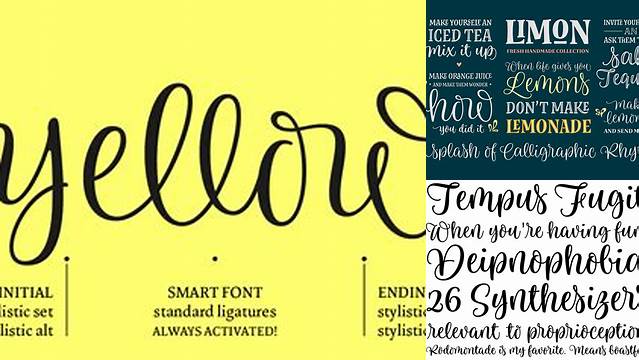
Limon Script Bold Font: Free Download & Best Uses
Hey guys! Let's dive into the world of fonts, specifically the Limon Script Bold font. This font isn't just another typeface; it's a stylish, elegant, and versatile option that can elevate your design projects. Whether you are crafting a logo, designing a website, or putting together marketing materials, choosing the right font is crucial. Limon Script Bold offers a unique blend of readability and aesthetic appeal, making it a favorite among designers and creatives. It’s got this lovely, flowing script style that's both modern and timeless, making it super versatile for all sorts of projects. Think invitations, branding, or even website headers—Limon Script Bold can really make your text pop. Now, what's so special about a bold script font, you ask? Well, script fonts, in general, bring a touch of personality and warmth to any design. They mimic the fluidity of handwriting, which can make your content feel more personal and engaging. When you add the 'bold' element, you get extra emphasis and visibility, perfect for grabbing attention. In this comprehensive guide, we'll explore everything you need to know about Limon Script Bold, including its features, best uses, and how to get your hands on it for free. We’ll look at its unique characteristics, the kinds of projects it shines in, and where you can snag it without spending a dime. So, if you're looking to add a dash of elegance and personality to your designs, stick around! We're about to get font-astic!
Key Features of Limon Script Bold
When you're hunting for that perfect font, it’s essential to understand what makes it tick. Limon Script Bold isn't just another pretty face; it's packed with features that make it a standout choice. Let's break down what makes this font so special. First off, the most noticeable feature is its bold weight. This isn’t your faint-hearted script; it's got a substantial presence that commands attention. The boldness ensures that your text remains legible and impactful, even from a distance. This makes it perfect for headings, titles, and anywhere you need your words to make a statement. Beyond the bold weight, Limon Script Bold boasts an elegant, flowing script style. The letters connect seamlessly, creating a natural, handwritten feel. This fluidity adds a touch of sophistication and warmth to your designs, making them more inviting and personal. Imagine using this for wedding invitations or thank-you notes – it just screams class! Another key feature is its versatility. While it’s a script font, Limon Script Bold isn’t limited to just formal occasions. It can be used in a wide range of projects, from branding and logos to website design and social media graphics. Its modern yet timeless appeal means it fits in just about anywhere. And let's talk about readability. Script fonts sometimes get a bad rap for being hard to read, but Limon Script Bold strikes a fantastic balance. The bold weight and clear letterforms ensure that your message comes across loud and clear, without sacrificing style. This is crucial, especially for digital applications where readability is paramount. The design of Limon Script Bold also includes attention to detail in its curves and swashes. These decorative elements add character and flair, making the font visually interesting and unique. It’s this attention to detail that sets Limon Script Bold apart from generic script fonts. In addition to its aesthetic qualities, Limon Script Bold often comes with a comprehensive character set. This means it typically includes uppercase and lowercase letters, numbers, punctuation marks, and special characters. Some versions even offer multilingual support, making it a versatile choice for international projects. So, to sum it up, Limon Script Bold is bold, elegant, versatile, and readable, with a touch of unique flair. It's a font that’s designed to make an impact, and it does so with style and grace. If you're looking for a font that stands out and adds personality to your designs, this could be your perfect match!
Best Uses for Limon Script Bold
Alright, now that we know what Limon Script Bold is all about, let's talk about where it really shines. This font isn’t a one-trick pony; it’s incredibly versatile and can enhance a wide variety of projects. Think of it as your secret weapon for adding that extra touch of elegance and personality. One of the most popular uses for Limon Script Bold is in branding. Imagine a logo that exudes sophistication and charm – Limon Script Bold can make that happen. Its bold weight ensures that your brand name stands out, while the flowing script adds a personal touch. It’s perfect for businesses that want to convey a sense of quality, creativity, or luxury. Wedding invitations are another fantastic application. This font brings a touch of romance and elegance to any invitation suite. Whether you're designing the main invite, RSVP cards, or thank-you notes, Limon Script Bold adds a handwritten feel that elevates the entire package. It’s like giving your guests a warm hug before the big day even arrives! Moving into the digital realm, Limon Script Bold works wonders for website headers and banners. A well-placed headline in this font can grab visitors' attention and create a lasting impression. Just be sure to use it sparingly and pair it with a more readable body font to keep things balanced. Social media graphics are another area where Limon Script Bold can make a big impact. Use it for quotes, announcements, or even your profile name to add a touch of flair to your feed. It's a great way to stand out in the crowded world of social media and catch your followers' eyes. Beyond these, Limon Script Bold is also an excellent choice for print materials like posters, flyers, and brochures. Its bold weight ensures that your message remains visible, even from a distance, while the script style adds a touch of sophistication. Think about using it for event promotions, product announcements, or any other marketing collateral where you want to make a statement. In the world of packaging design, Limon Script Bold can add a premium feel to your products. Imagine using it on labels for handmade goods, artisanal products, or luxury items. It’s a subtle yet effective way to convey quality and craftsmanship. Lastly, don't forget about personal projects! Limon Script Bold is perfect for creating custom greeting cards, personalized gifts, or even adding flair to your journal. Its versatility makes it a go-to choice for any project where you want to add a touch of personality and style. So, whether you're a designer, a business owner, or just someone who loves to create, Limon Script Bold has something to offer. Its blend of elegance, boldness, and versatility makes it a valuable addition to any font library. Get creative and see where it takes you!
Tips for Using Script Fonts Effectively
Alright, let's talk strategy! Now that you've got your hands on Limon Script Bold or one of its awesome alternatives, it's crucial to know how to use script fonts effectively. These beauties can add a ton of personality and flair to your designs, but they can also become a readability nightmare if not handled with care. Let’s dive into some pro tips for using script fonts like a boss. First and foremost, readability is key. Script fonts are often more decorative than other font styles, which means they can be trickier to read. Always prioritize readability over pure aesthetics. If your audience can't easily decipher your message, the fancy font isn’t doing its job. Use script fonts sparingly, primarily for headings, titles, and short phrases where impact matters more than extensive reading. Pairing is crucial. Script fonts rarely play well as the only font in a design. They shine best when paired with a clean, simple sans-serif or serif font for body text. Think of the script font as the star of the show and the simpler font as the supporting cast. This contrast helps create a visual hierarchy and ensures that your design remains balanced and readable. When choosing a pairing font, look for one that complements the script font without competing for attention. Sans-serif fonts like Open Sans or Montserrat often work well with script fonts, as do classic serif fonts like Merriweather or Playfair Display. Size matters, guys! Script fonts often look their best when used in larger sizes. This helps to showcase their unique details and ensures they remain legible. Avoid using script fonts in small sizes, where their intricate letterforms can become muddled and difficult to read. Think about the context. The style of your script font should match the overall tone and message of your design. A formal, elegant script like Limon Script Bold might be perfect for wedding invitations or luxury branding, but it might feel out of place in a tech startup's website. Consider the audience and the purpose of your design when selecting a script font. Kerning and tracking are your friends. Script fonts often require some tweaking to their letter spacing to look their best. Pay attention to kerning (the space between individual letters) and tracking (the overall spacing of the font). Adjust these settings as needed to ensure that the letters flow smoothly and are evenly spaced. Overuse can kill the vibe. A little script font goes a long way. Avoid overusing script fonts in your designs, as too much can make your message feel cluttered and overwhelming. Use them strategically to highlight key information and add personality, but don't let them dominate the entire layout. Test, test, test! Before finalizing your design, test your script font in different contexts and on various devices. Make sure it looks good on both print and digital media, and check its readability on different screen sizes. Getting feedback from others can also be helpful in identifying any potential issues. Lastly, be mindful of the license. Remember those licensing terms we talked about? Double-check that you're using the script font in accordance with its license, whether it's for personal or commercial use. Following these tips will help you wield the power of script fonts effectively, creating designs that are both beautiful and impactful. So go ahead, experiment, and let your creativity flow!
Alright, guys, we've reached the end of our deep dive into the world of Limon Script Bold and its many facets. Let's recap what we've learned and why this font – or one of its awesome alternatives – deserves a spot in your design toolkit. Throughout this comprehensive guide, we've explored the key features of Limon Script Bold, highlighting its bold weight, elegant script style, and impressive versatility. We've seen how it can elevate a wide range of projects, from branding and wedding invitations to website headers and social media graphics. This font isn’t just about looking pretty; it’s about making a statement with style and grace. We've also delved into the best places to find Limon Script Bold for free, emphasizing the importance of sticking to reputable sources and always, always checking the font license. Remember, responsible font usage is key to avoiding any legal headaches and ensuring you're respecting the creators' work. But what if Limon Script Bold proves elusive in your free font hunt? No sweat! We’ve covered a fantastic array of alternatives, each with its own unique charm and flair. From the classic elegance of Great Vibes to the modern touch of Playlist Script, there’s a script font out there to suit every project and personality. And speaking of projects, we’ve shared some pro tips for using script fonts effectively. Remember the golden rules: prioritize readability, pair wisely with simpler fonts, and let those kerning and tracking settings be your guide. Script fonts are powerful tools, but they shine brightest when used strategically and with intention. So, why should you care about Limon Script Bold or script fonts in general? Because they offer a unique way to add personality, warmth, and sophistication to your designs. They’re like the secret sauce that can transform a good design into a great one. Whether you're a seasoned designer or just starting out, experimenting with script fonts can open up a whole new world of creative possibilities. In conclusion, Limon Script Bold – and its equally fabulous alternatives – are more than just fonts; they're design assets that can help you tell stories, create connections, and leave a lasting impression. So go forth, download, experiment, and let your creativity run wild. Happy designing, everyone!